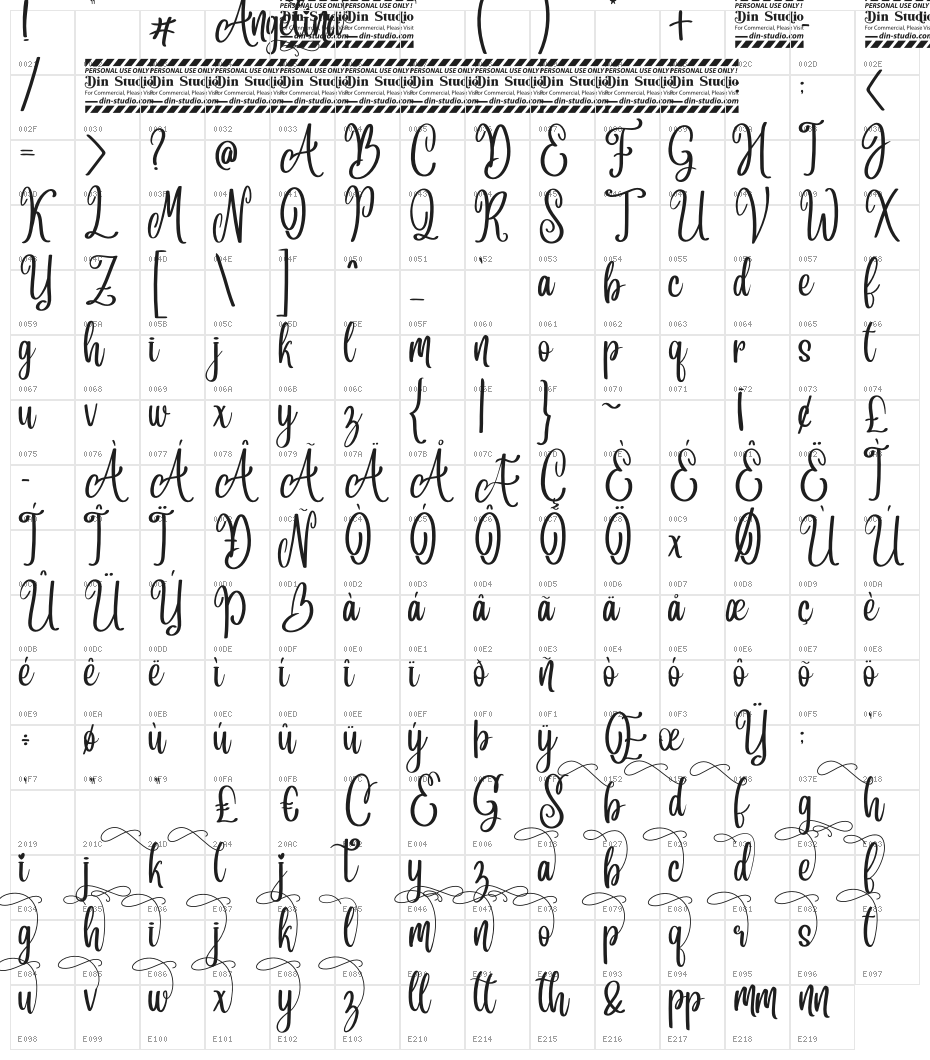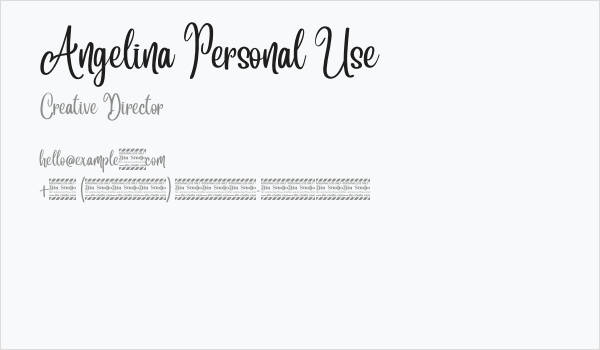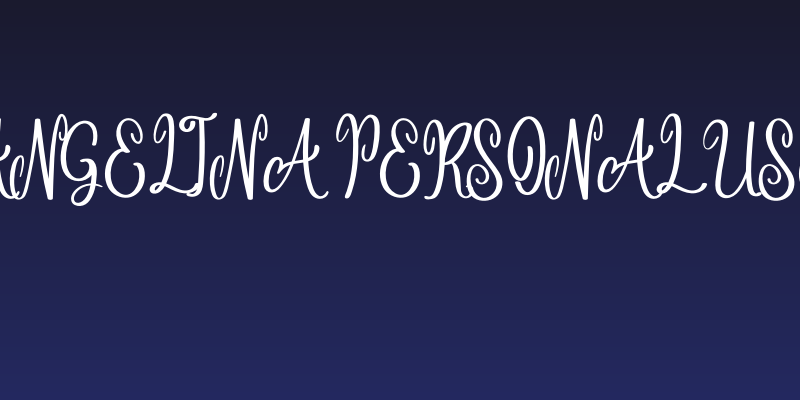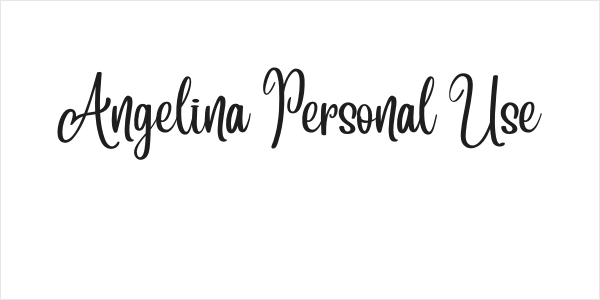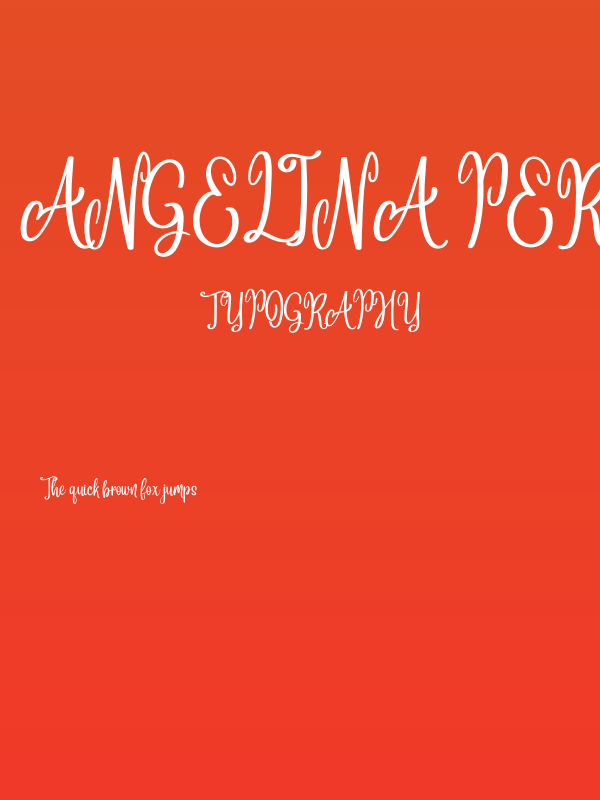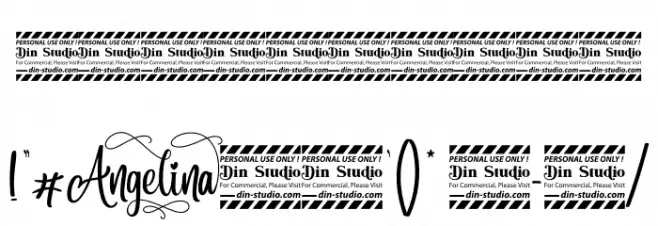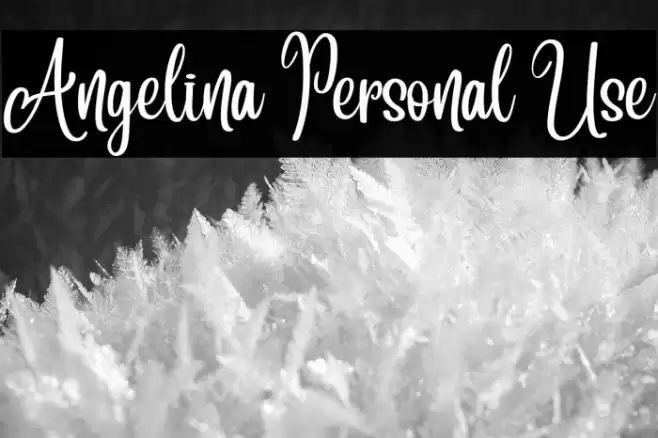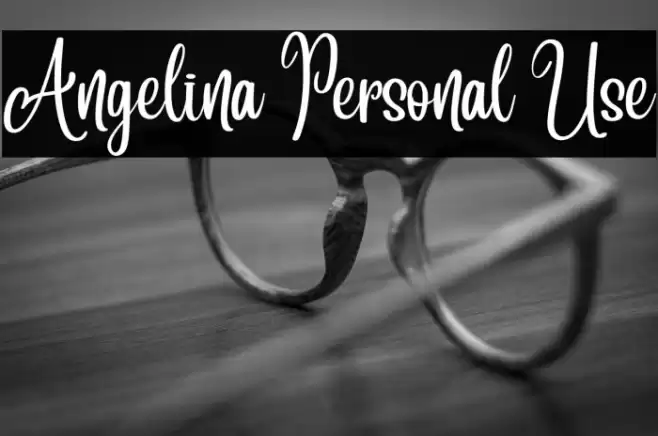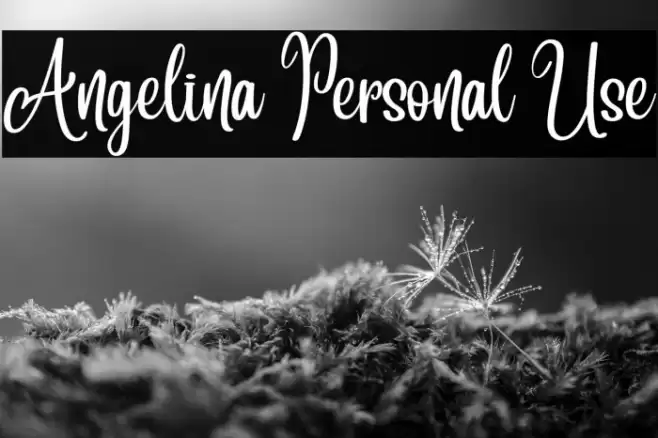
Angelina Personal Use Font
Angelina Personal Use Description
This font features an elegant, flowing script style with a handwritten appearance. The uppercase letters are characterized by their tall, slender forms and graceful curves, while the lowercase letters maintain a consistent fluidity and connectedness, enhancing the handwritten feel. The font exhibits a playful yet sophisticated vibe, with swashes and loops adding to its decorative nature. The characters are well-spaced, ensuring readability despite the intricate design. This font is ideal for projects that require a personal touch, such as invitations, greeting cards, or branding materials that aim to convey elegance and creativity.